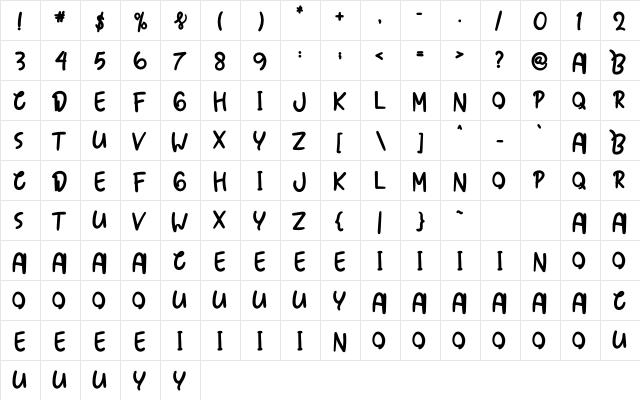
Summer Special Bold Bold
Design Context for Summer Special Bold Typeface
Summer Special Bold is a composed and adaptable typeface that performs quietly and consistently across a wide range of design contexts. Its bold stroke weight gives it real presence on the page.